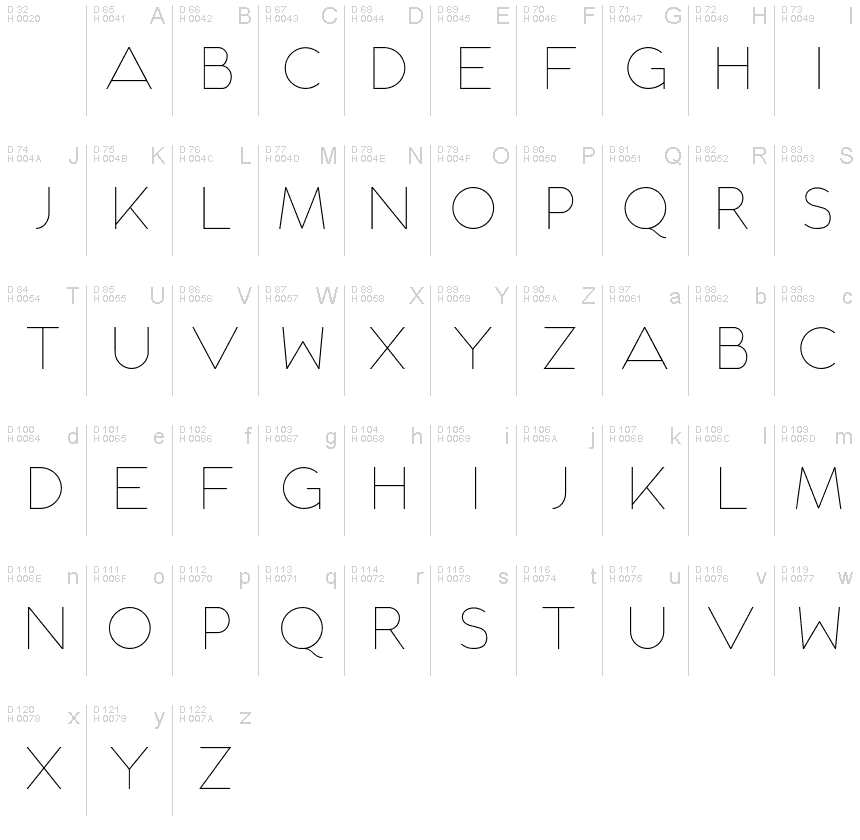
Mladen Regular
Mladen Regular, a creation by Vladimir Nikolic, is a sleek and modern sans serif font with an extra-light weight. Its semi-expanded width offers versatility in design, making it suitable for a variety of projects.
From elegant and minimalistic logos to clean and professional website headings, Mladen Regular adds a touch of sophisticated simplicity. With its clean lines and balanced proportions, this font effortlessly conveys professionalism and clarity in corporate branding materials.
It is also an excellent choice for fashion magazines looking to showcase their cutting-edge content with a touch of elegance.